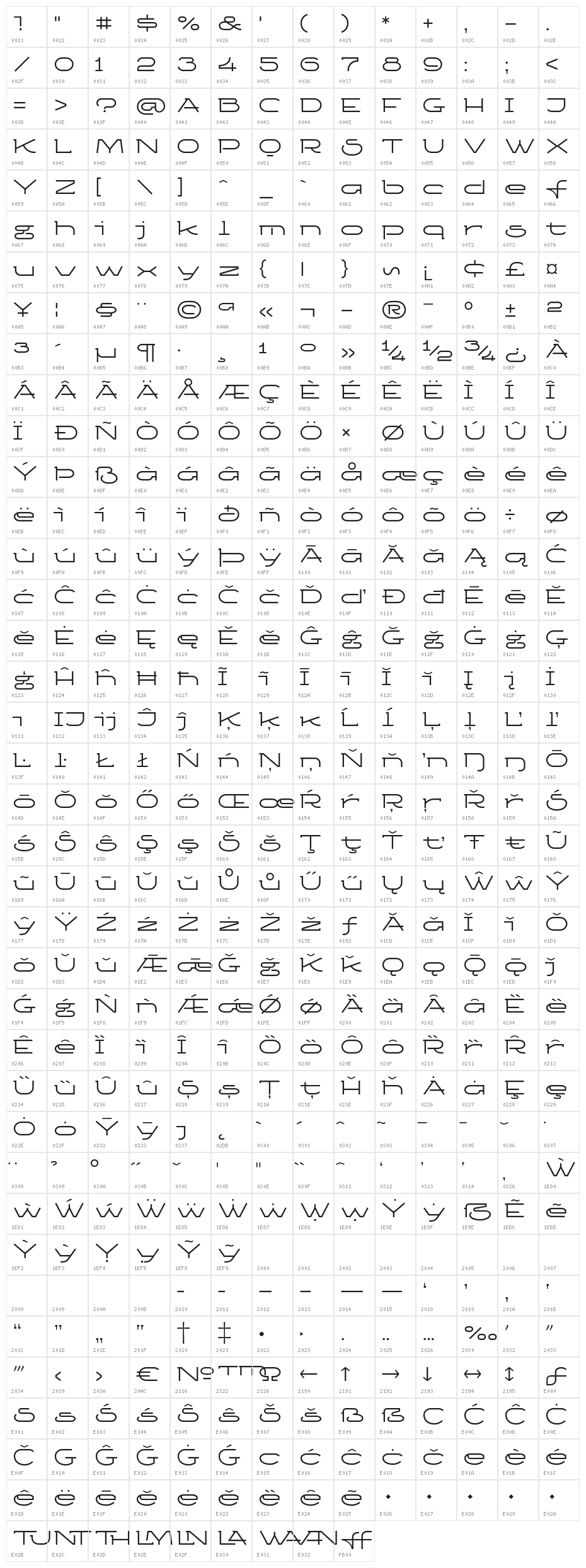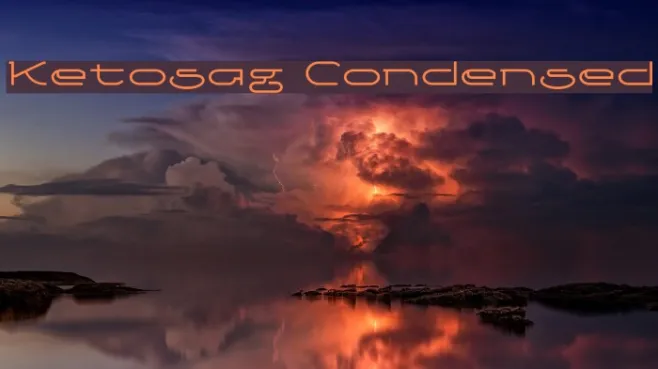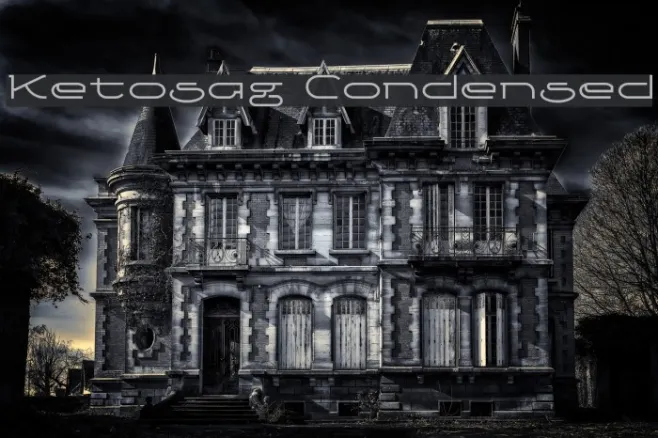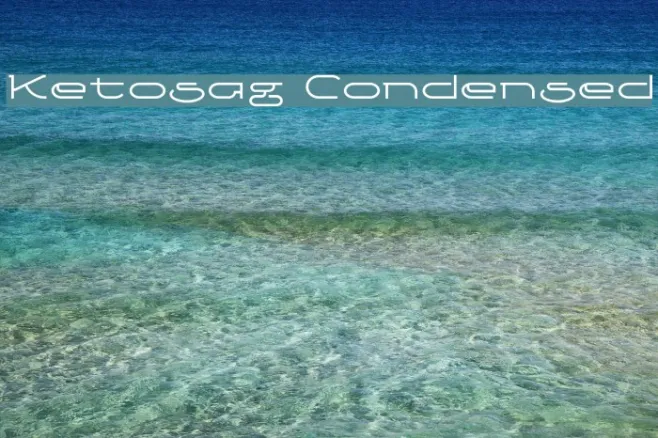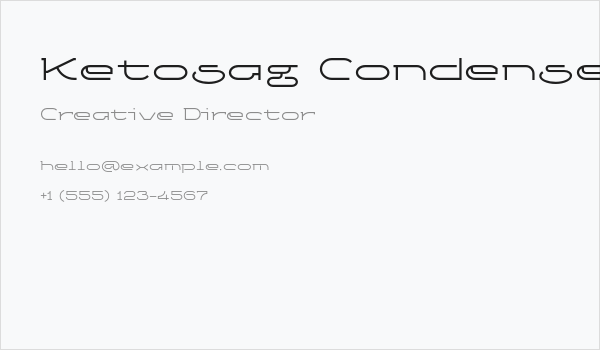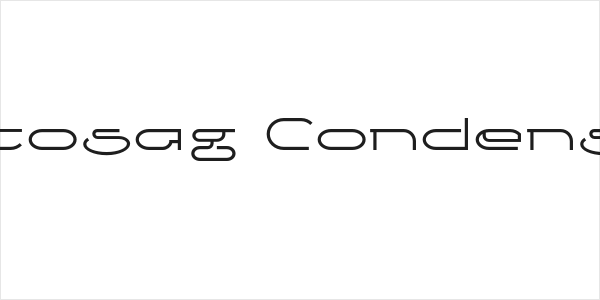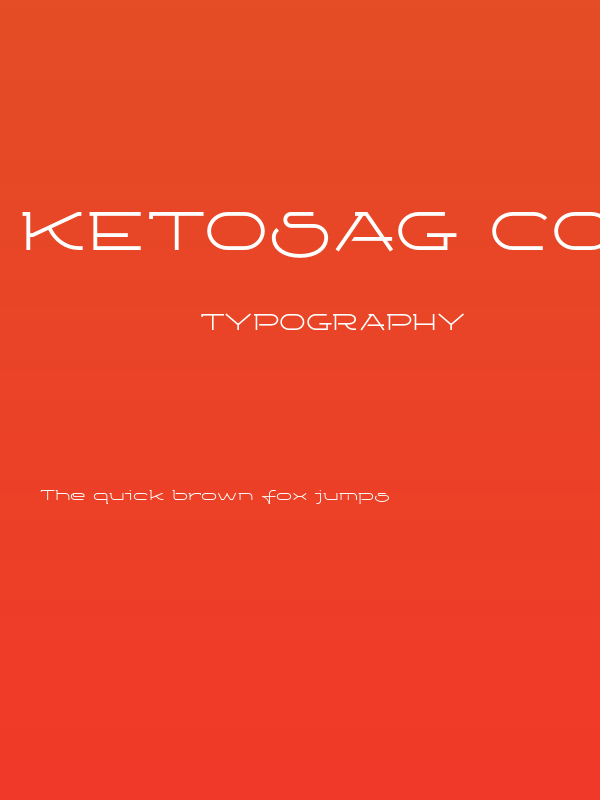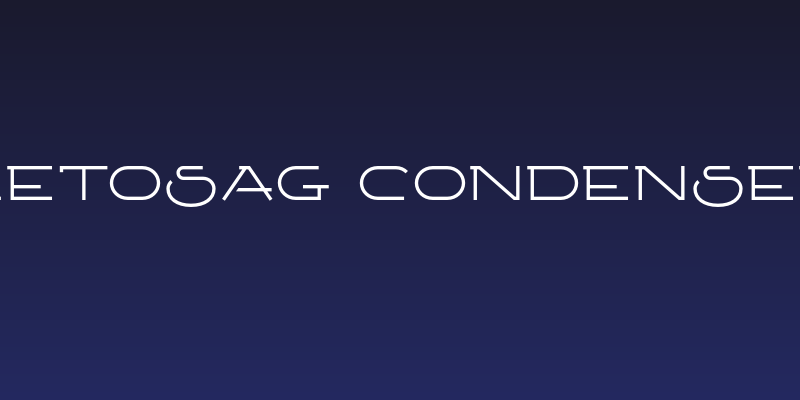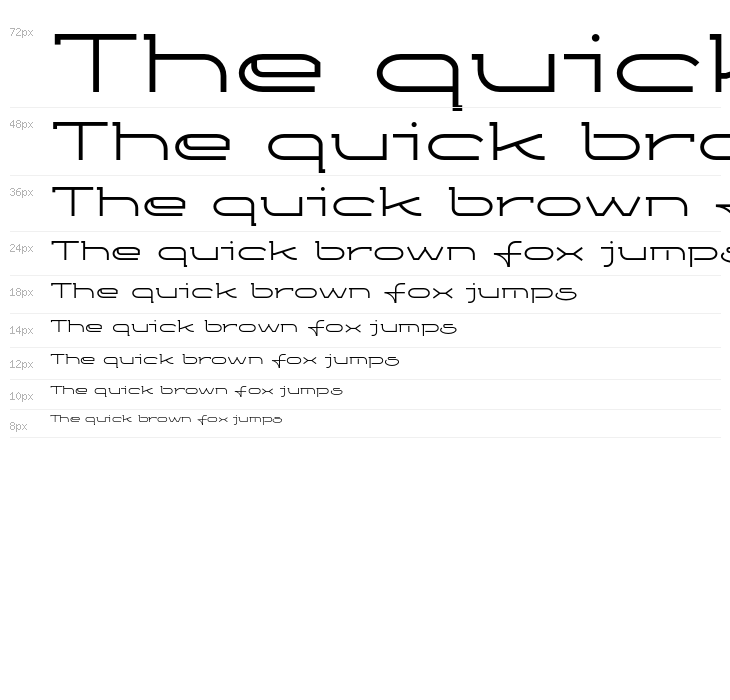
Ketosag Condensed Font
Ketosag Condensed Description
This font features a sleek, modern design with a condensed structure, characterized by its geometric shapes and clean lines. The uppercase and lowercase letters maintain a consistent style, with a futuristic and minimalistic appearance. The numerals and special characters are designed to complement the overall aesthetic, ensuring readability and visual harmony. The font's condensed width allows for efficient use of space, making it suitable for various design applications where space is a premium. Its unique style makes it stand out, while still maintaining legibility and functionality.
| Proposed Projects | Ideal for tech branding, modern web design, and futuristic posters. |